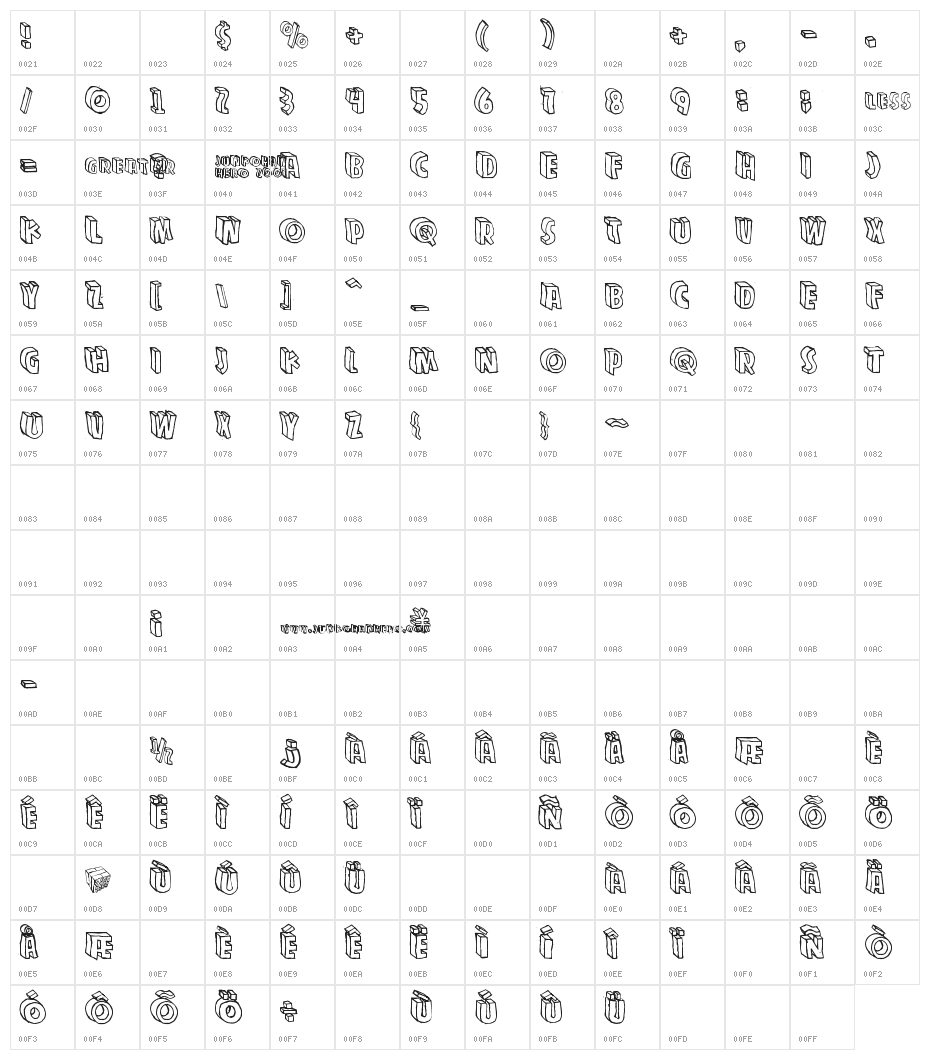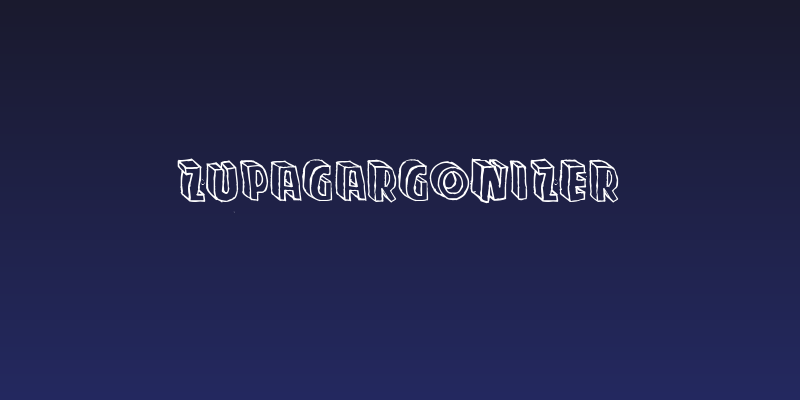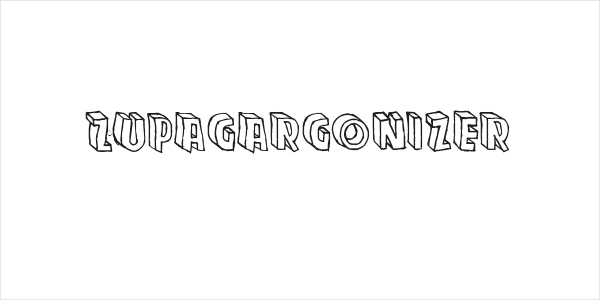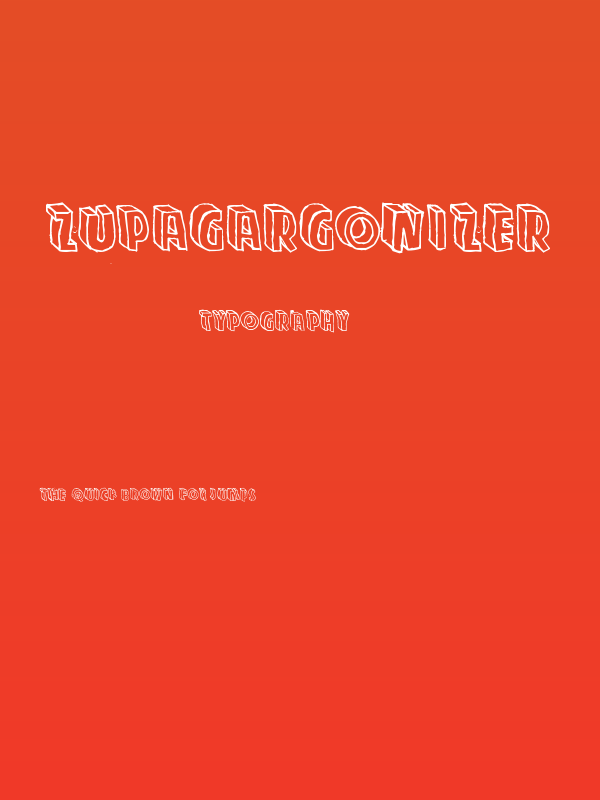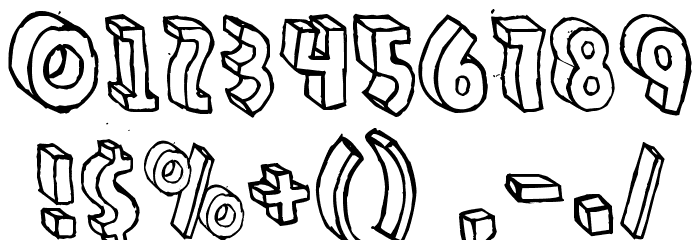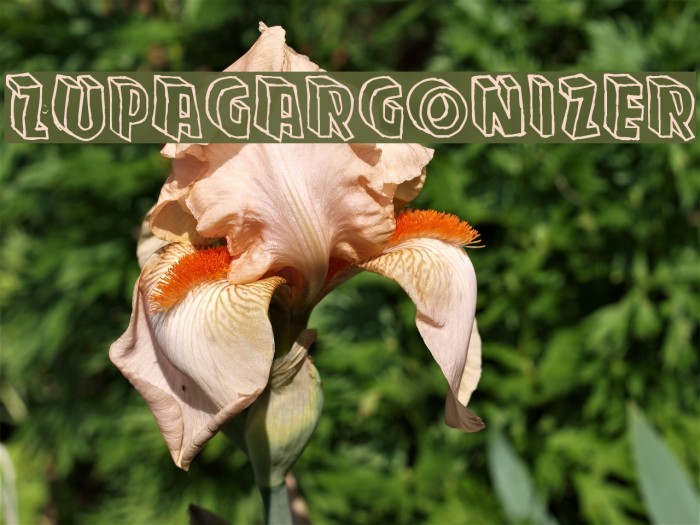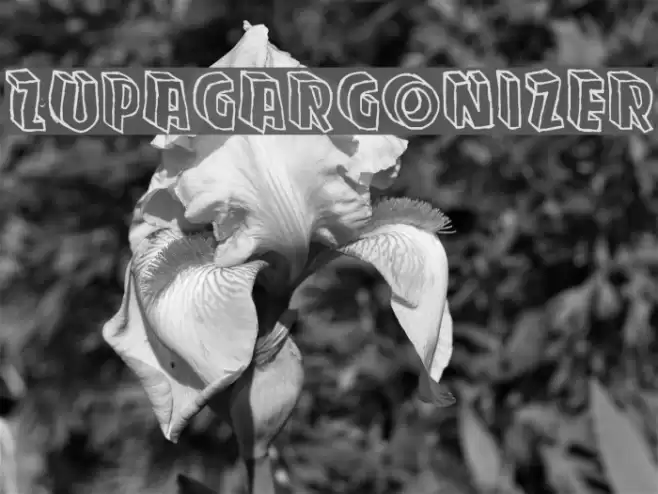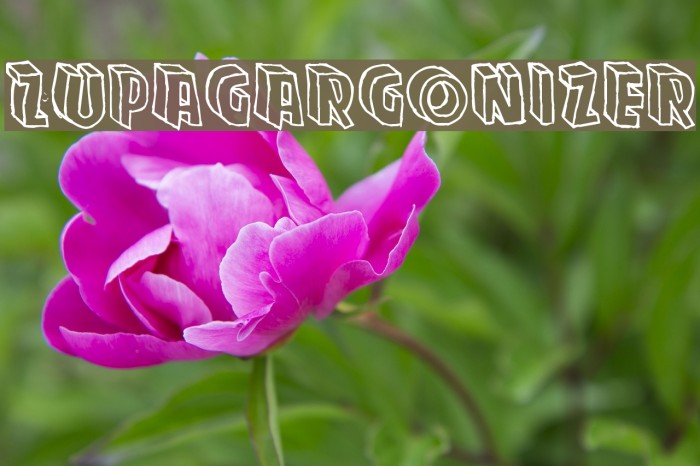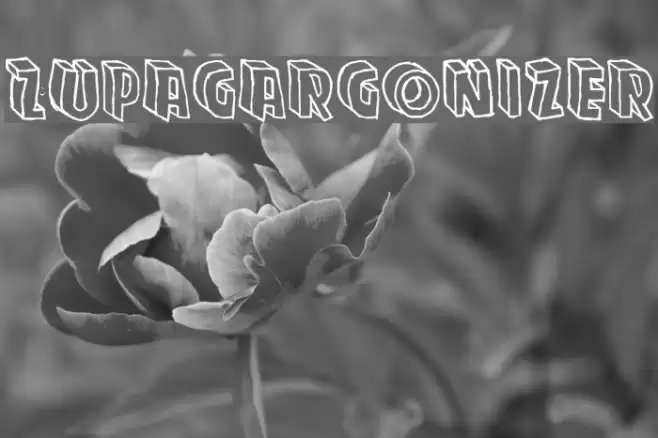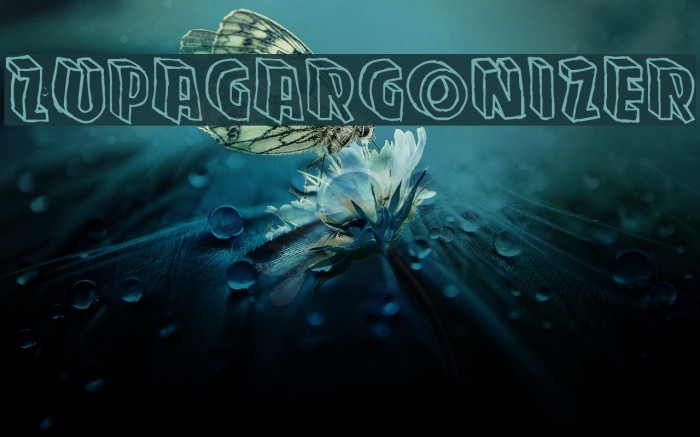
Zupagargonizer Font
Zupagargonizer Description
This font features a bold, three-dimensional style with a hand-drawn appearance. The letters are outlined with a thick black line, giving them a cartoonish and playful look. Each character appears to be slightly tilted, enhancing the dynamic and lively feel. The font includes both uppercase and lowercase letters, numbers, and a variety of special characters. The overall design is reminiscent of graffiti or comic book lettering, making it ideal for projects that require a fun and informal touch.
| Overall Style | Playful, Cartoonish, Dynamic |
| Proposed Projects | Perfect for comic books, children's book covers, playful posters, and creative branding. |